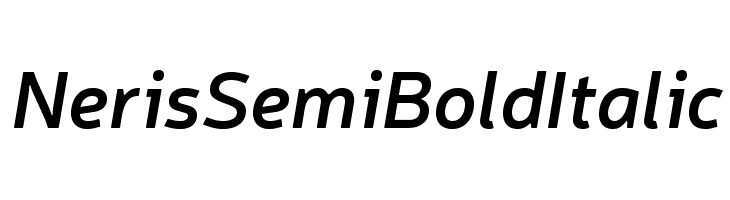
A modern, bold, and italicized font with a sleek and dynamic appearance.
A modern, semi-bold sans-serif font with clean lines and rounded edges.
A modern, geometric sans-serif font with clean lines and balanced spacing.
A bold, italic font with a dynamic and modern style.
A bold, modern font with clean lines and rounded edges for a friendly, professional look.
A modern, italicized font with a sleek and dynamic design.